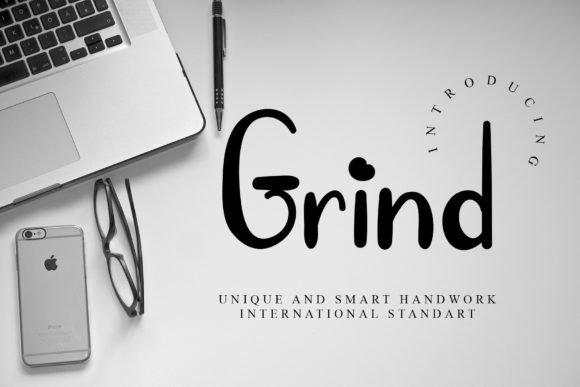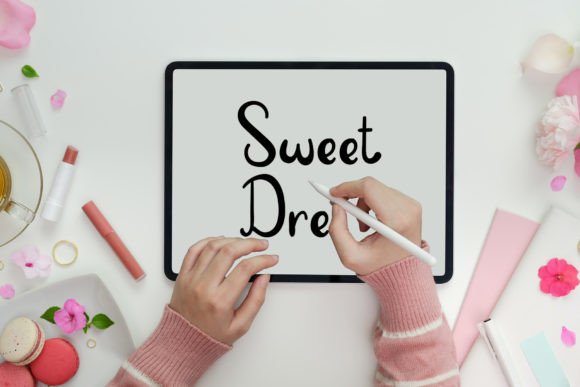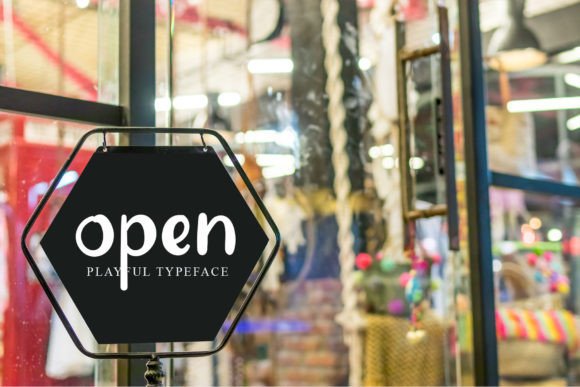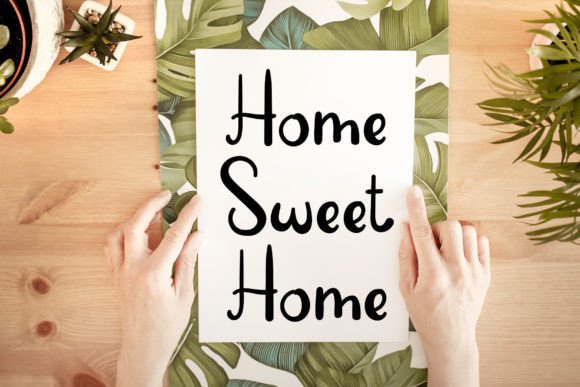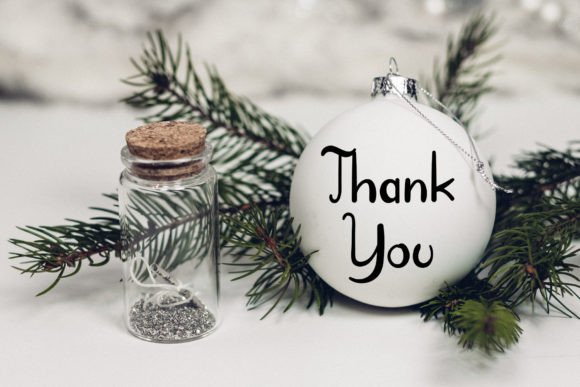
Grind Font
✍️ About Grind Font
Grind is a distinctive and elegant handwritten font that brings an artistic and stylish touch to your designs. With its refined curves, varied baselines, and fine stroke details, Grind stands out as a font that blends personal charm with visual sophistication. It mimics the effortless flow of natural handwriting, making it an excellent choice for both casual and upscale projects.
Whether you’re designing for events, personal branding, or creative artwork, Grind delivers an authentic handwritten experience. It combines a handcrafted look with professional quality, helping your message stand out with style and personality.
🎨 Where to Use Grind Font
Grind is highly versatile and adapts beautifully to a wide range of design contexts. It’s perfect for projects that require a handwritten touch with a hint of elegance and uniqueness. From stylish invitations to impactful logos, this font elevates your ideas with its graceful form.
Perfect for:
• Wedding & Party Invitations
• Thank You and Greeting Cards
• Event Announcements & Posters
• Billboards & Outdoor Displays
• Social Media Graphics & Branding
• Elegant Logos & Personal Signatures
• Product Packaging & Labels
• Stationery & Craft Projects
The dynamic letterforms and delicate details of Grind help you communicate creativity and sophistication in equal measure.
🛠️ Font Features
• Elegant handwritten script style
• Smooth, flowing letterforms with varied baselines
• Uppercase and lowercase letters
• Numerals and punctuation
Grind’s unique visual rhythm enhances readability while maintaining a handcrafted feel.
💡 Why Choose Grind?
If you’re looking for a handwritten font that feels both graceful and expressive, Grind is the ideal pick. Its organic curves and custom-crafted strokes make it suitable for professional branding as well as personal creative use. With every word, Grind delivers a warm, human touch—making your designs more inviting and memorable.
Use Grind when you want to combine the elegance of script fonts with the intimacy of handwriting. Its versatility and beauty make it a must-have for designers, content creators, and creative professionals.